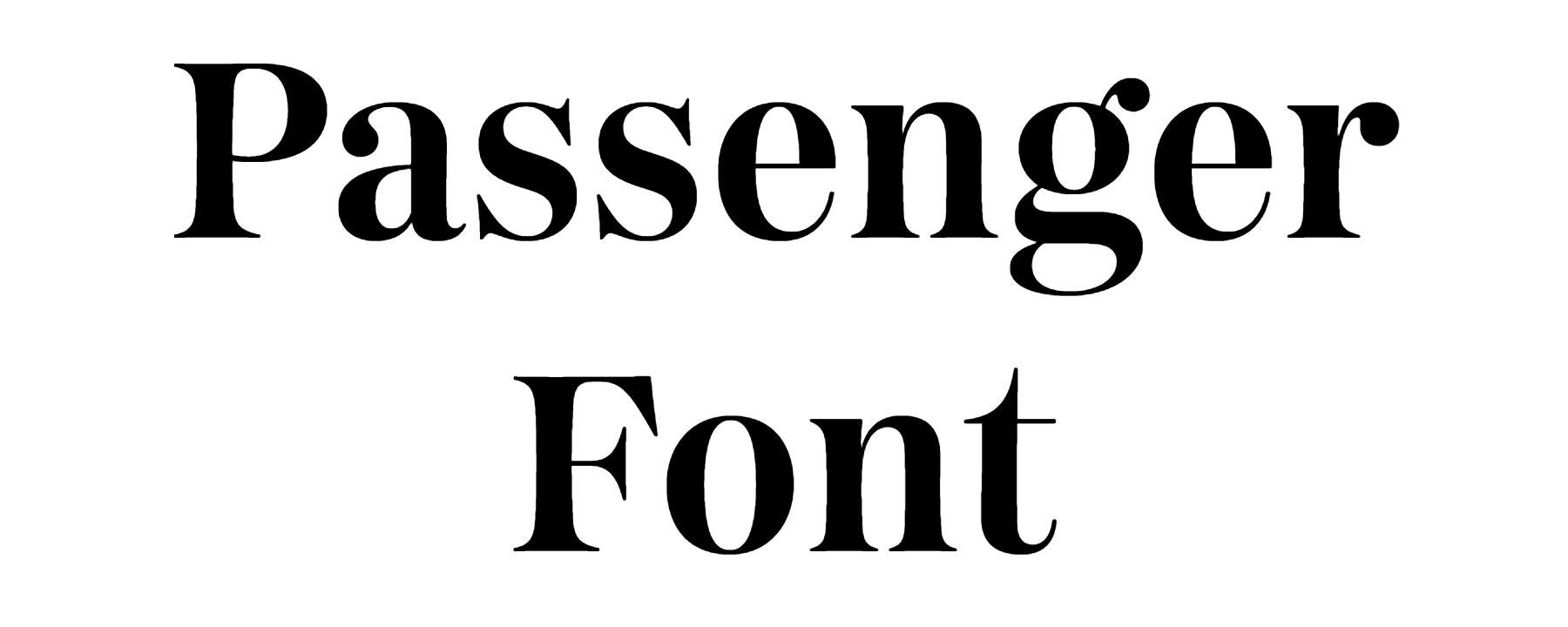
Passenger Font
Passenger Font is a serif font designed by Diana Ovezea, Samo Acko and published by Fontstore Pte Ltd (2017). It has the traditional, bookish feel of type you see in novels, newspapers and long-established brands. You get 12 styles in one free ZIP, and the preview above lets you test each one before you download.
- Designer: Diana Ovezea, Samo Acko
- Publisher: Fontstore Pte Ltd
- Font styles: 12 (Regular, Light, Extralight, Light Italic, Extralight Italic, Medium, Medium Italic, Semibold, Semibold Italic, Extrabold, Extrabold Italic and Italic)
- Weights: ExtraLight (200) to ExtraBold (800)
- Glyphs: 455 in the Regular style
- OpenType features: Ligatures, stylistic alternates, old-style numbers and fractions
What You Can Type With Passenger Font
With complete upper and lowercase letters and all ten digits, Passenger Font is ready for real wording, not just a single headline. Everyday marks like &, !, ? and @ are there too. Thanks to its accented letters, it also works for Spanish, French, German, Portuguese and Italian, not just English. Of its 455 glyphs, about 44 are not on your keyboard at all. That is where the alternates explained below live.
Where Passenger Font Works Best
Passenger Font is a natural fit for book covers, magazine headlines and classic branding. Its lowercase letters are tall compared to the capitals, which keeps it readable at smaller sizes. Serif fonts shine in headlines and printed text. For long paragraphs on phones, check that it still reads well at small sizes. Because the family has more than one style, you can mix them in a single design for headings, subheadings and highlights.
Who designed Passenger Font font?
Passenger Font was designed by Diana Ovezea, Samo Acko and published by Fontstore Pte Ltd. The copyright line inside the font is dated 2017.
Does Passenger Font support accented letters?
Yes. Passenger Font includes the accented letters needed for Spanish, French, German, Portuguese and Italian, so it works for more than just English.